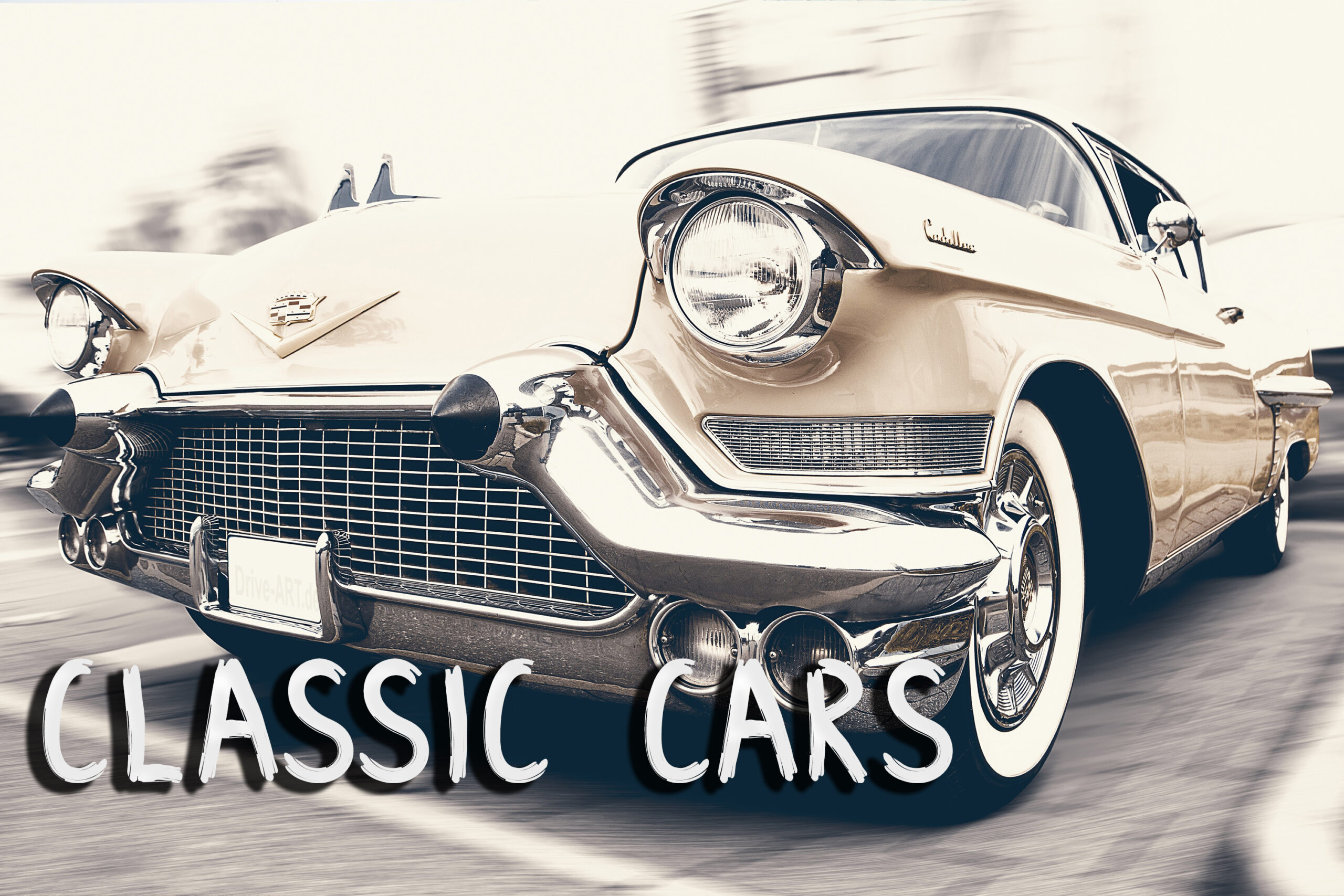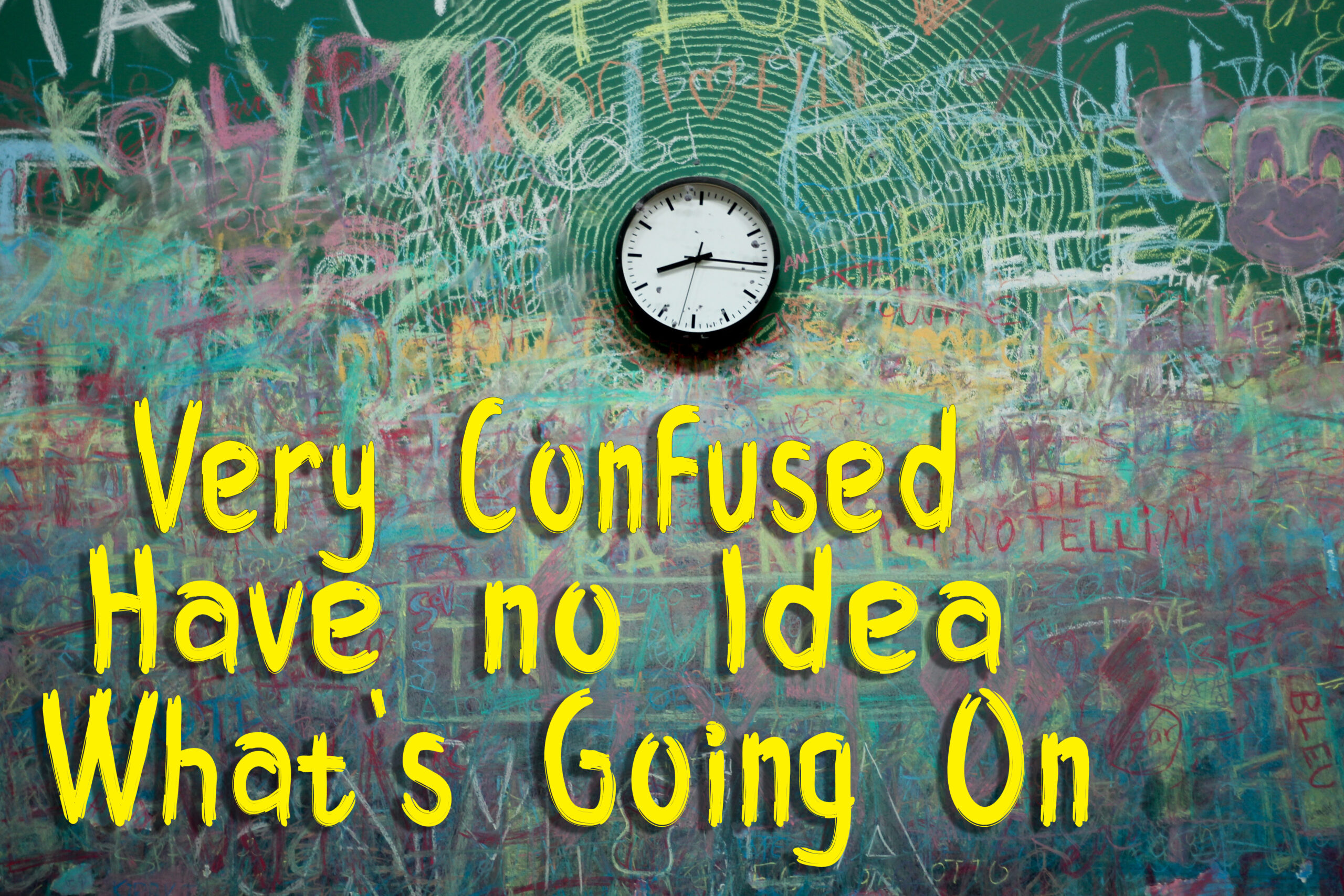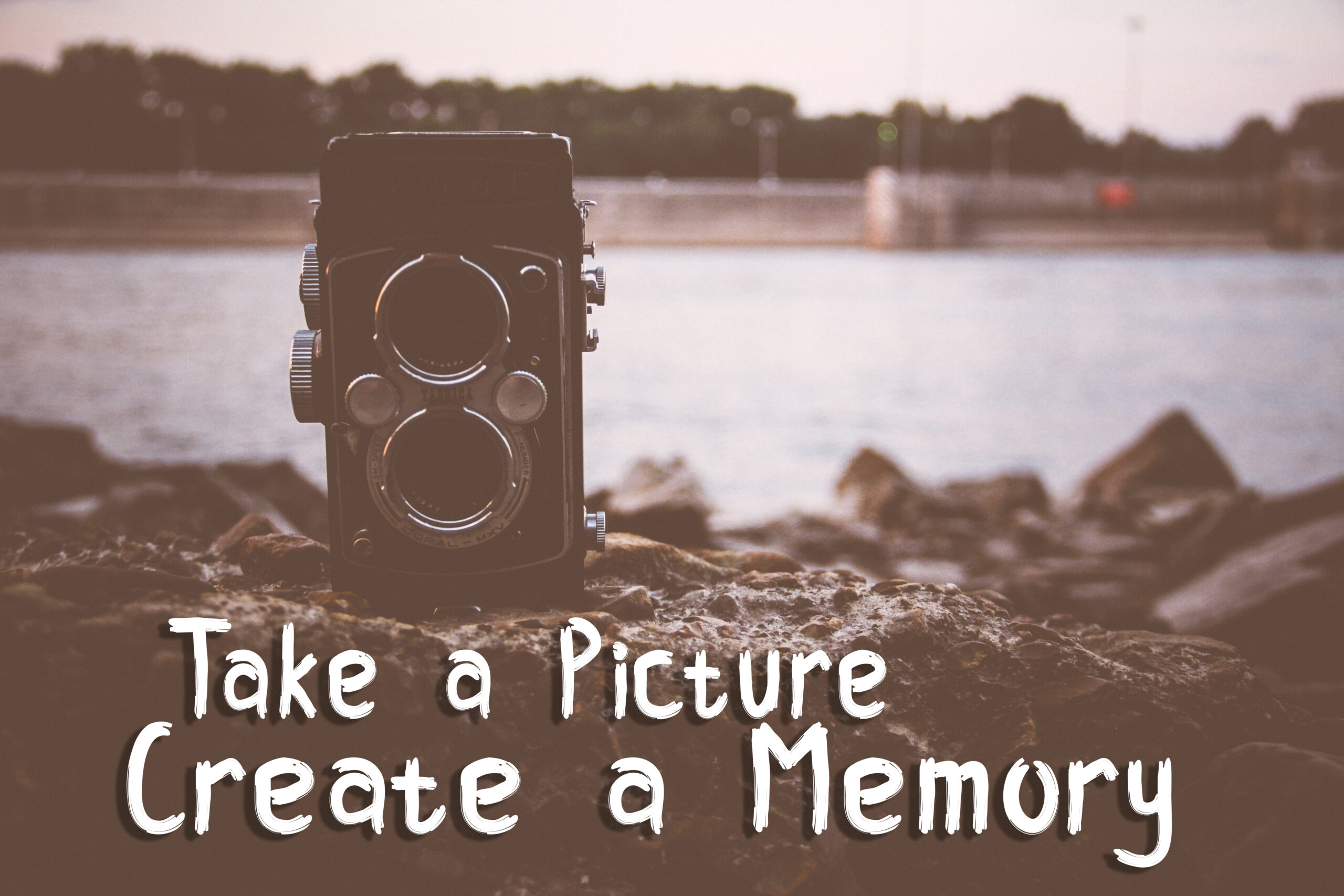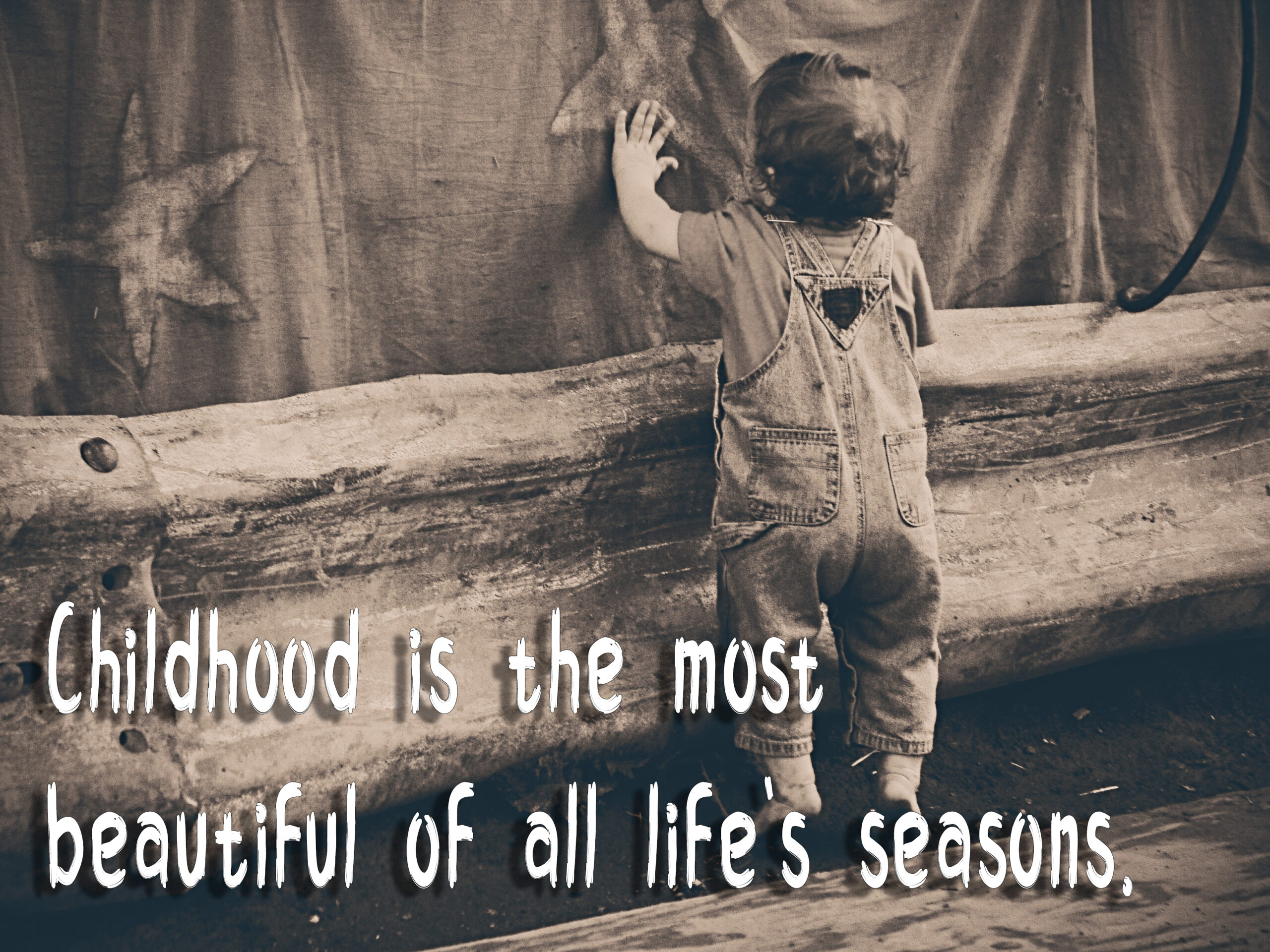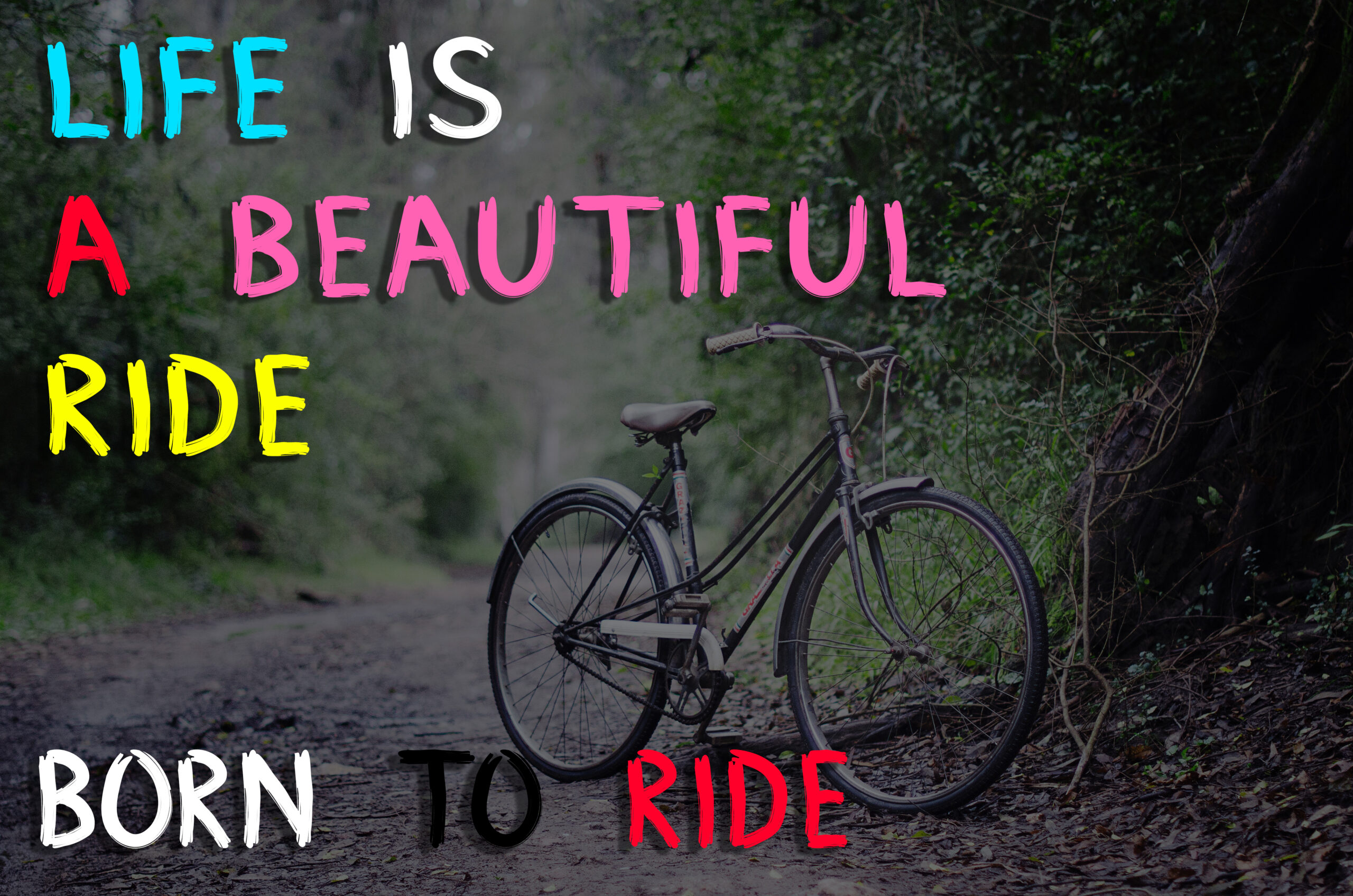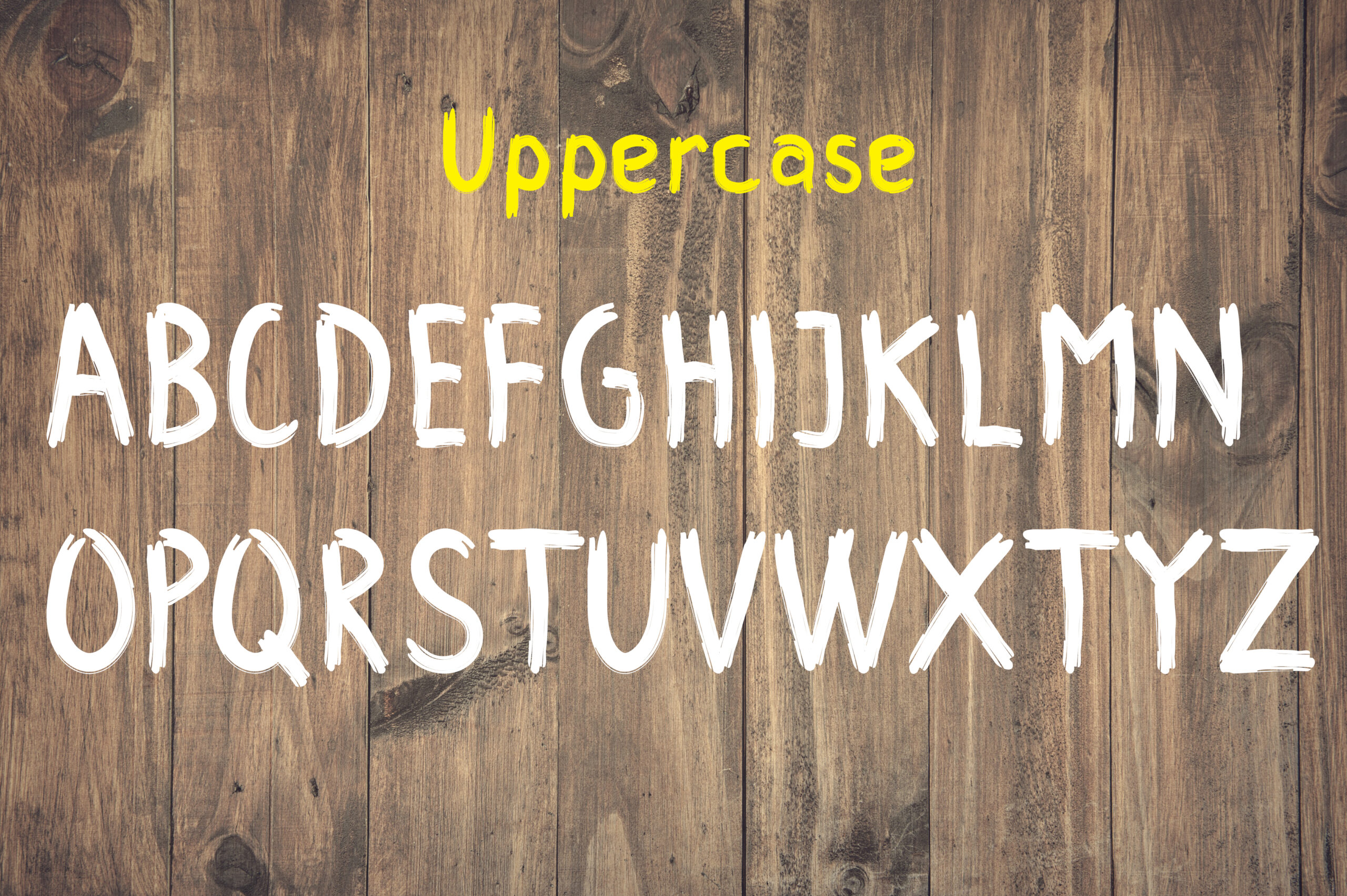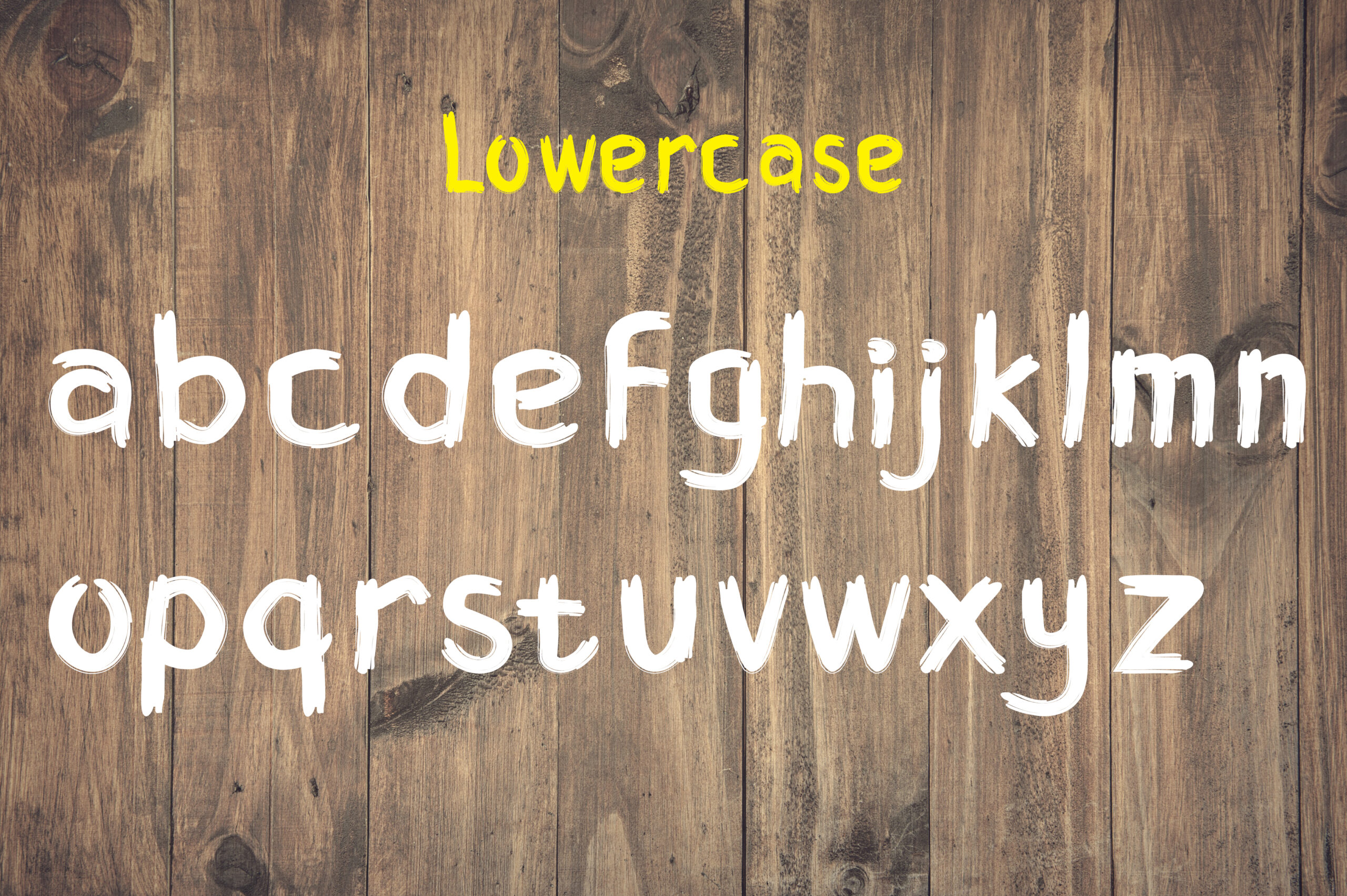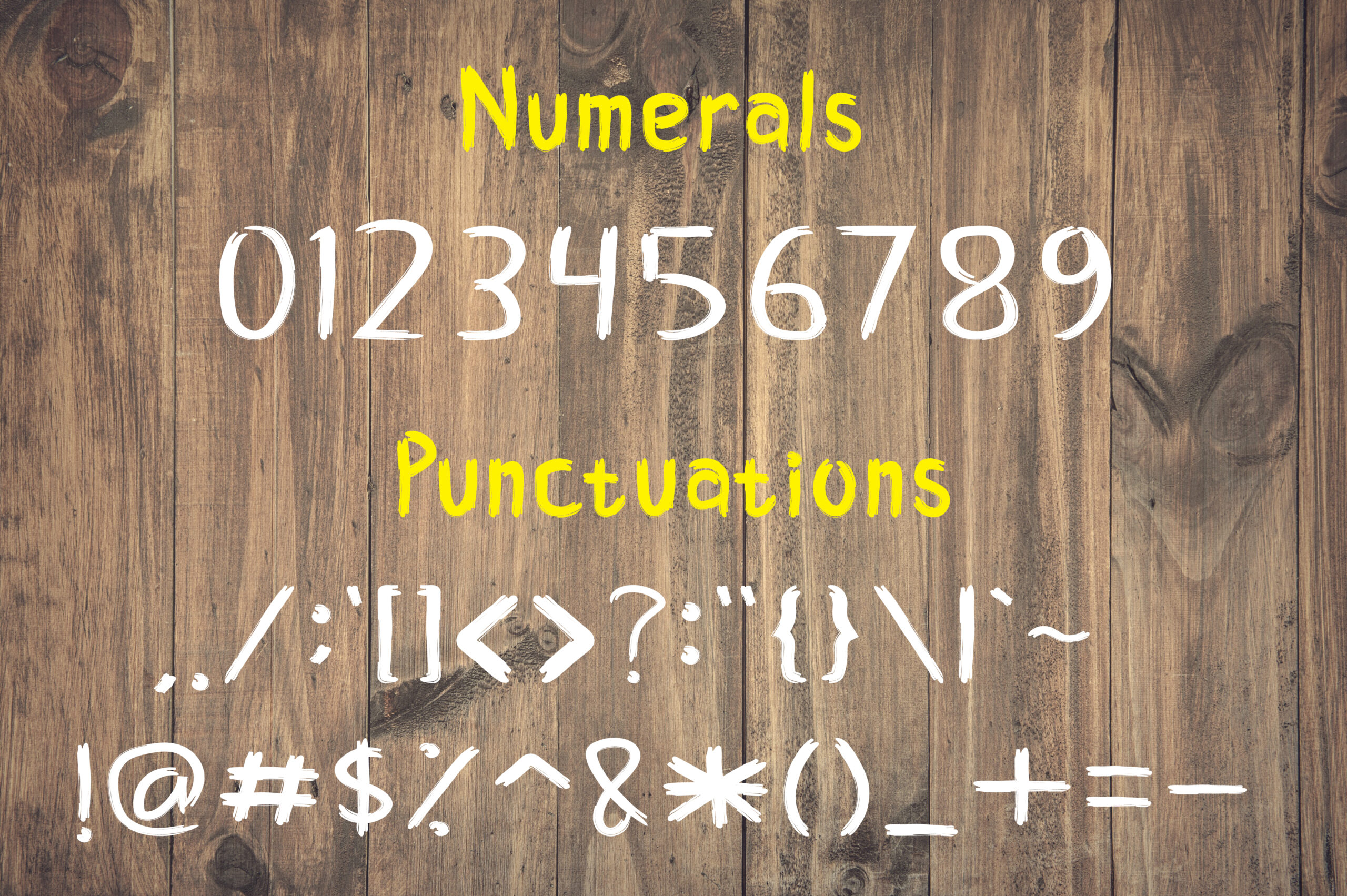
Kayee Brush Font
About Kayee Brush Font
Kayee Brush is a unique handwritten brush font, shaped like wooden fractures for a textured and authentic feel. This brush font is crafted in a sans serif style for unique yet clean appeal.